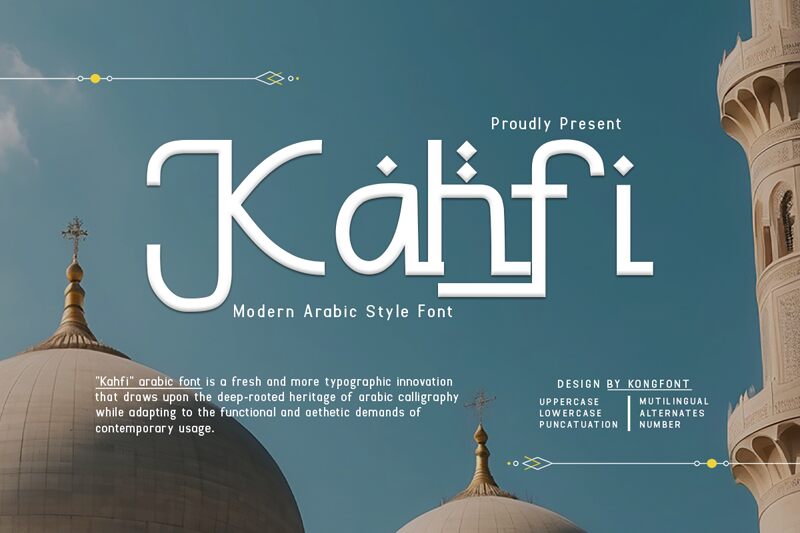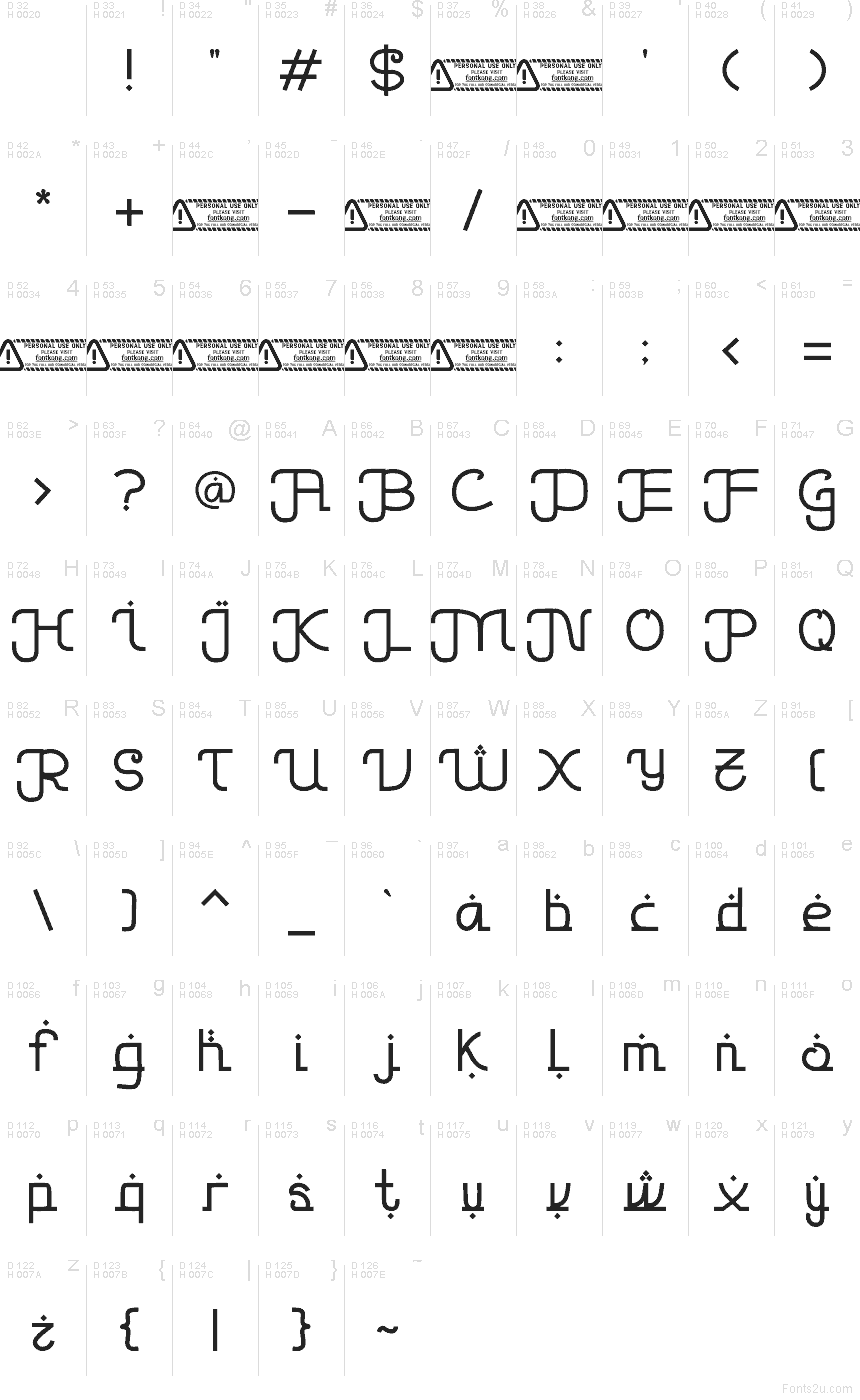
Kahfi font by Kong Font is a free faux Arabic foreign typeface that gives Latin letters a smooth, calligraphic twist. Wide, sweeping curves and crisp, straight segments echo the flow of Arabic signage while staying clean and readable for Western audiences. The playful dots and rhythmic strokes feel like ink brushed onto paper, making Kahfi a strong choice whenever you want instant Middle Eastern or North African flavor without sacrificing clarity.
Using Kahfi, you can shape evocative branding for cafés, hookah lounges, and street-food stalls, or craft striking posters, event flyers, book covers, menus, and packaging for cultural festivals. This free font shines at larger sizes where its looping forms and decorative details can breathe; pair it with a simple geometric sans for body text to keep layouts balanced and modern.